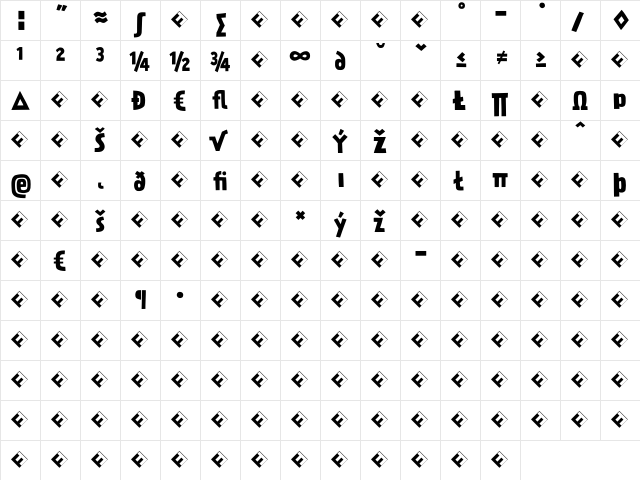
PraterSansTwo-BoldExp Bold
| Foundry | Steffen Sauerteig, Henning Wagenbreth, published by Fontshop International for the FontFont library |
Design Context for PraterSansTwo-BoldExp Typeface
PraterSansTwo-BoldExp is a composed and adaptable typeface that performs quietly and consistently across a wide range of design contexts. Its bold stroke weight gives it real presence on the page.